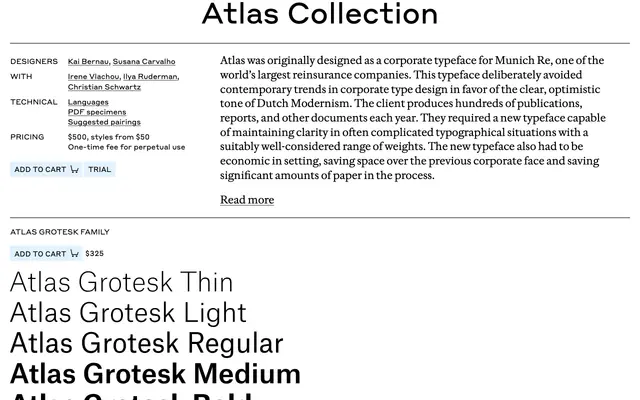
Atlas
Commercial Type · Kai Bernau and Susana Carvalho
A Dutch Modernist grotesque drawn for Munich Re with a matching monospaced Typewriter companion, suited to reports and identity work.
A grotesque sans by Kai Bernau and Susana Carvalho, originally designed as a corporate typeface for Munich Re, one of the world's largest reinsurance firms. The brief deliberately avoided contemporary corporate trends in favour of the clear, optimistic tone of Dutch Modernism. The client produced hundreds of publications, reports and documents a year, and needed a face that held clarity in complex typographic situations across a well-considered range of weights, while saving space on the page. The retail family pairs Atlas Grotesk with Atlas Typewriter, a monospaced companion, and was developed further for Greek and Cyrillic with Irene Vlachou and Ilya Ruderman, plus collaboration with Christian Schwartz.
Originally a corporate typeface for Munich Re, drawn to avoid contemporary corporate trends in favour of clear, optimistic Dutch Modernism. Includes a Grotesk and a monospaced Typewriter companion. Additional development with Irene Vlachou, Ilya Ruderman and Christian Schwartz.